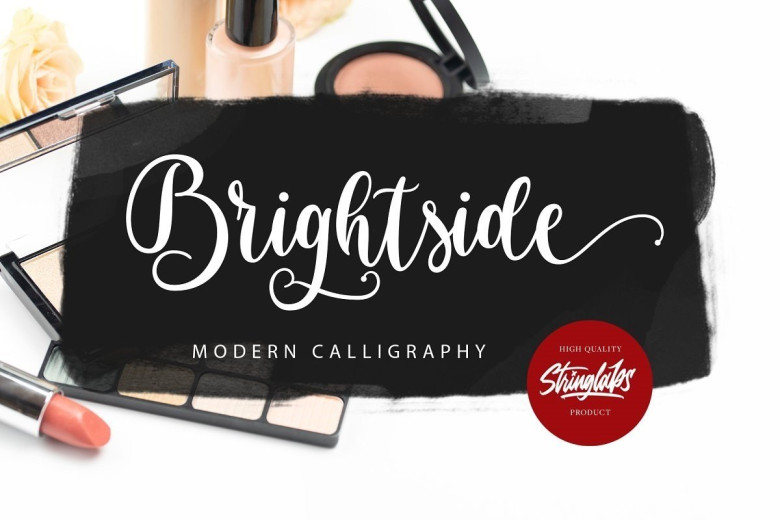
Brightside Modern Calligraphy Font
Introducing Brightside – Modern Calligraphy Font, Brightside is a beautiful and modern calligraphy font. It is PUA encoded which means you can access all of the glyphs and swashes with ease! It features a varying baseline, smooth lines, gorgeous glyphs and stunning alternates. Brightside will turn any creative idea into a true piece of art!
This font has a unique character uppercase, lowercase and flowing feel that is perfect for use in logo / wordmark, Instagram story, badges, sign boards, posters, text titles, clothing, wedding invitations, etc. The font has many features Open Type like ligature, alternative style, swash, etc., and supports multiple languages.